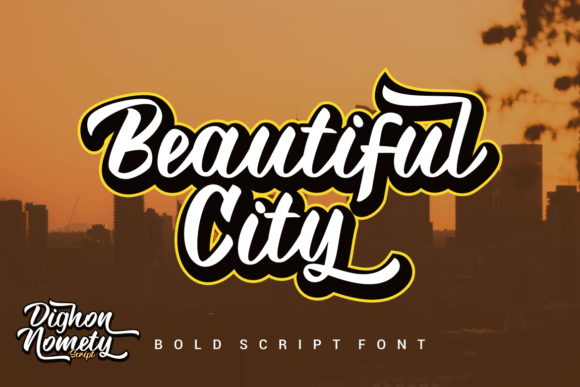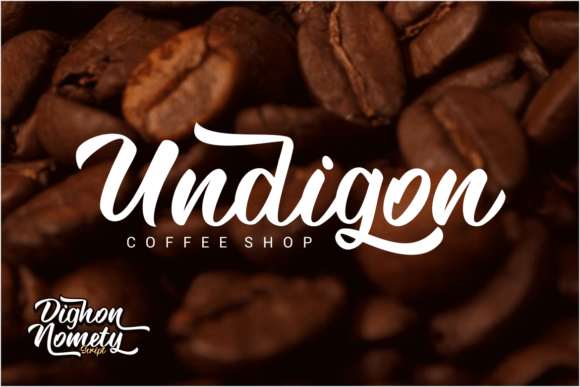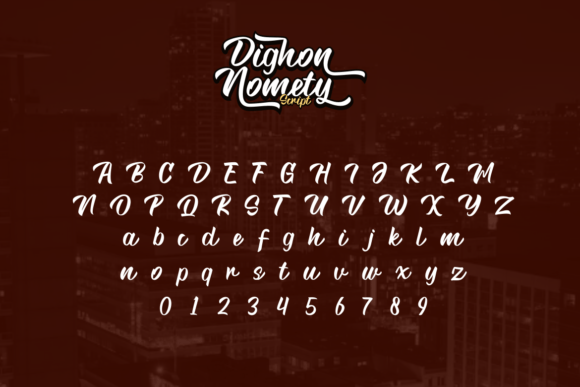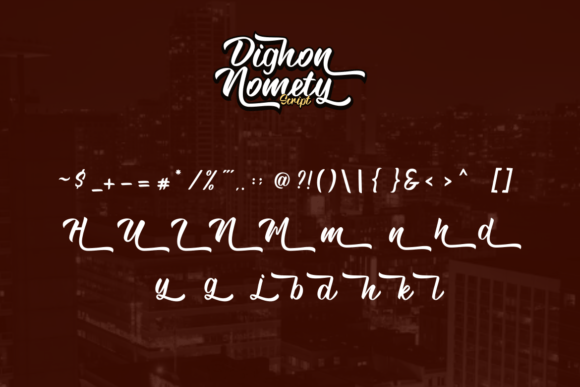
Dighon Nomety Font: Elevate Your Designs with a Modern, Bold, and Authentic Display Font
In the world of typography, a font can make or break a design. For designers and crafters looking for a statement piece, Dighon Nomety Font is an exceptional choice. This modern, bold, and authentic display font is perfect for a wide range of applications, from logos and t-shirt printing to creative products and more. Its versatility and uniqueness make it an extraordinary addition to any branding project.
What Makes Dighon Nomety Font Stand Out?
Dighon Nomety Font boasts a distinctive style that sets it apart from other fonts. Its bold and authentic design makes it perfect for creating eye-catching headlines, titles, and logos. The font’s modern aesthetic ensures that your designs look contemporary and fresh, appealing to a wide audience. Whether you’re working on a branding project, creating merchandise, or designing promotional materials, Dighon Nomety Font provides the perfect blend of style and functionality.
Key Features of Dighon Nomety Font
- Modern and Bold Design: Dighon Nomety Font features a sleek and bold design that instantly grabs attention.
- Authentic Display Font: Its authentic style makes it perfect for display purposes, adding a touch of uniqueness to your designs.
- Versatile: Suitable for a variety of contexts, including logos, t-shirt printing, creative products, and more.
- Easily Readable: Despite its boldness, the font remains easily readable, ensuring your message is conveyed effectively.
Dighon Nomety Font is an excellent choice for designers and crafters looking to elevate their projects. Its unique style allows for endless creativity, making it perfect for:
- Logo Design: Create memorable and impactful logos that represent your brand’s identity.
- T-Shirt Printing: Add a professional touch to your merchandise with high-quality, custom designs.
- Creative Products: Enhance your product designs with a font that stands out and captures attention.
- Branding Projects: Consistency in branding is key, and Dighon Nomety Font helps you achieve a cohesive look across all your materials.
Tips for Using Dighon Nomety Font Effectively
To get the most out of Dighon Nomety Font, consider the following tips:
- Pair with Complementary Fonts: Use Dighon Nomety Font as a headline font and pair it with a simpler font for body text to create visual hierarchy.
- Experiment with Colors: Don’t be afraid to try out different colors and gradients to see what works best with the font.
- Consider Context: Think about where your design will be displayed and adjust the size and style of the font accordingly.
Dighon Nomety Font is a game-changer for designers and crafters looking to add a modern, bold, and authentic touch to their projects. Its versatility, readability, and unique style make it an invaluable asset for any branding project. Whether you’re creating logos, printing t-shirts, or designing creative products, Dighon Nomety Font is sure to elevate your designs and make them stand out. Explore the possibilities with Dighon Nomety Font and take your designs to the next level.